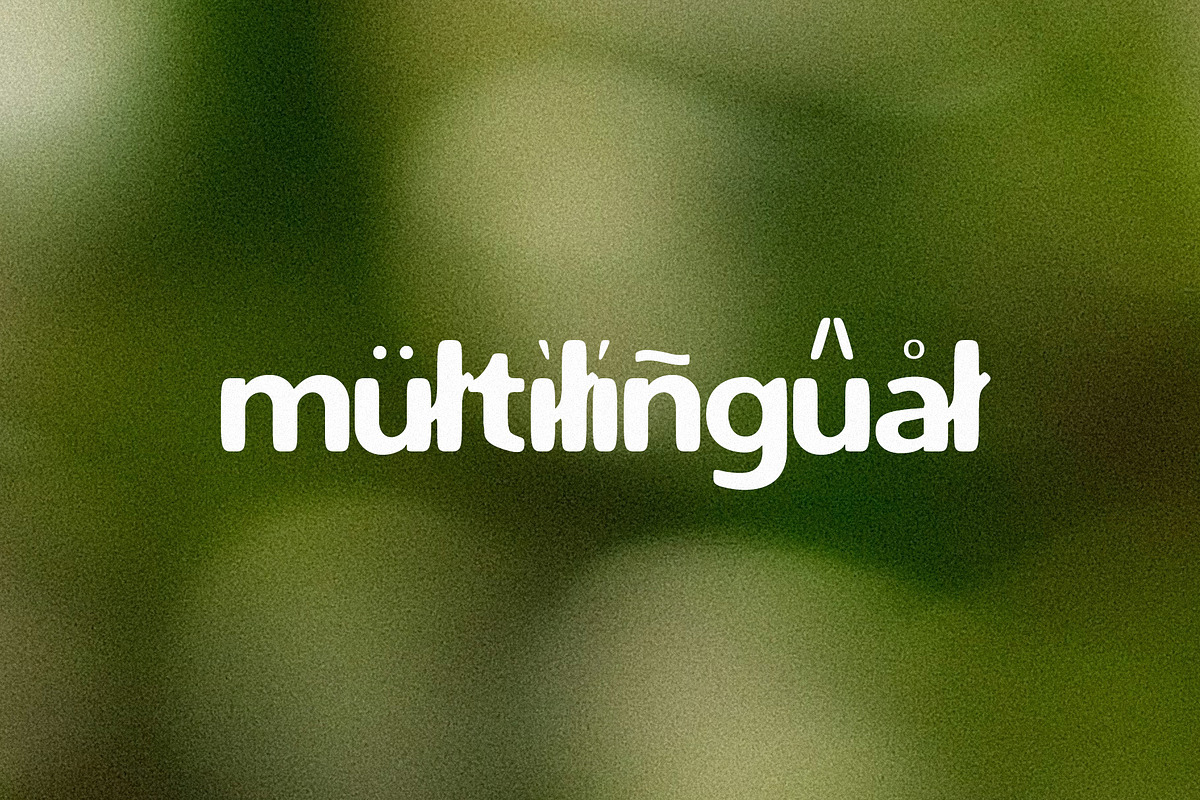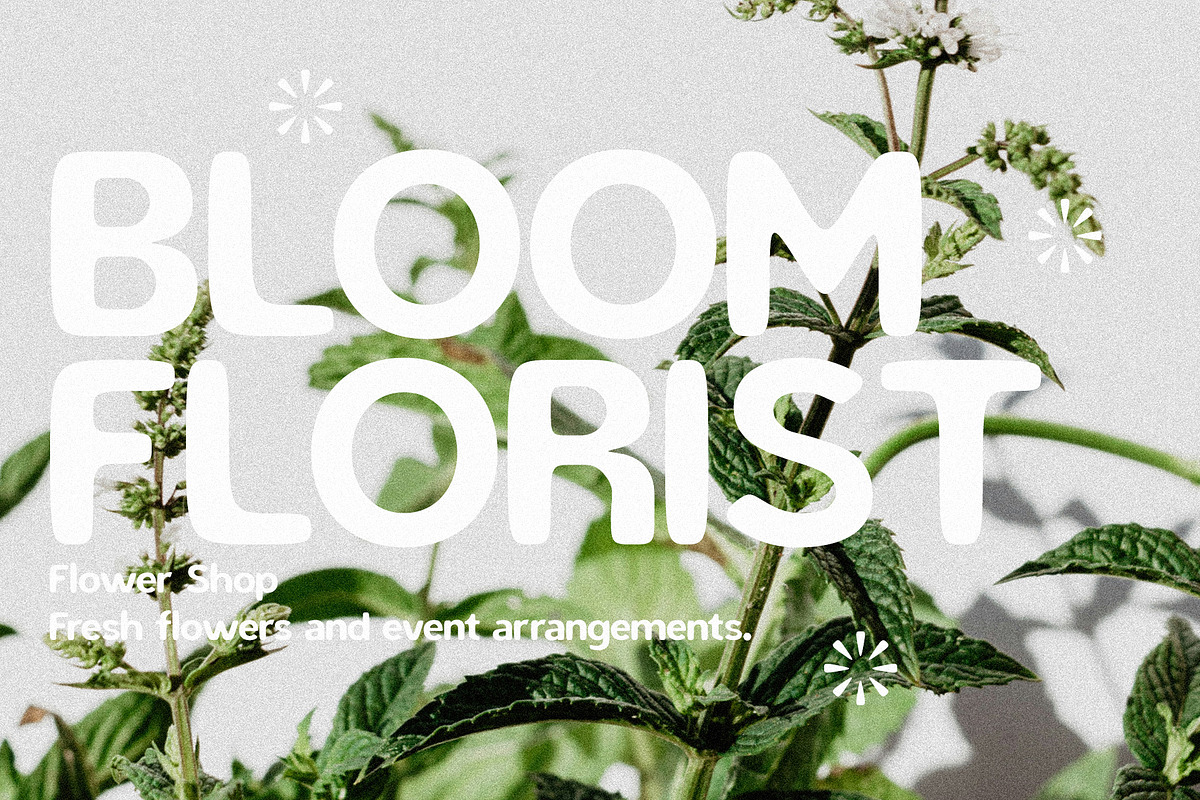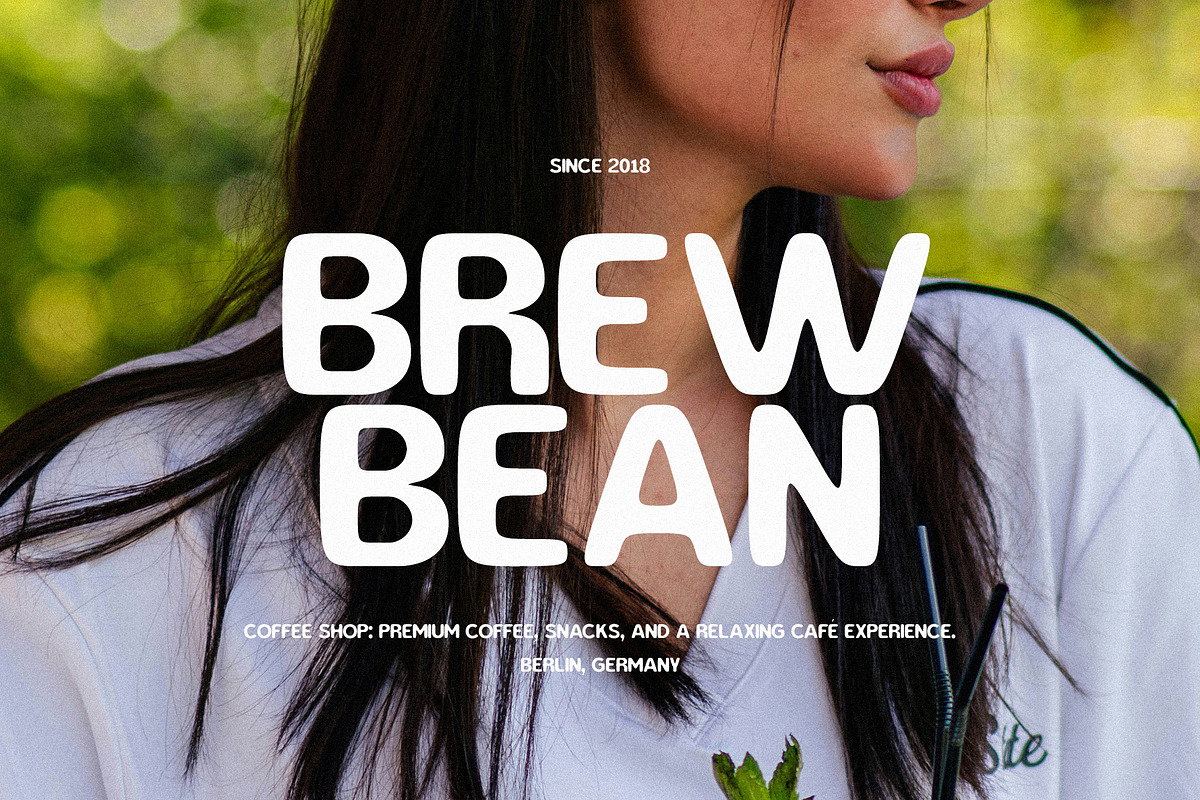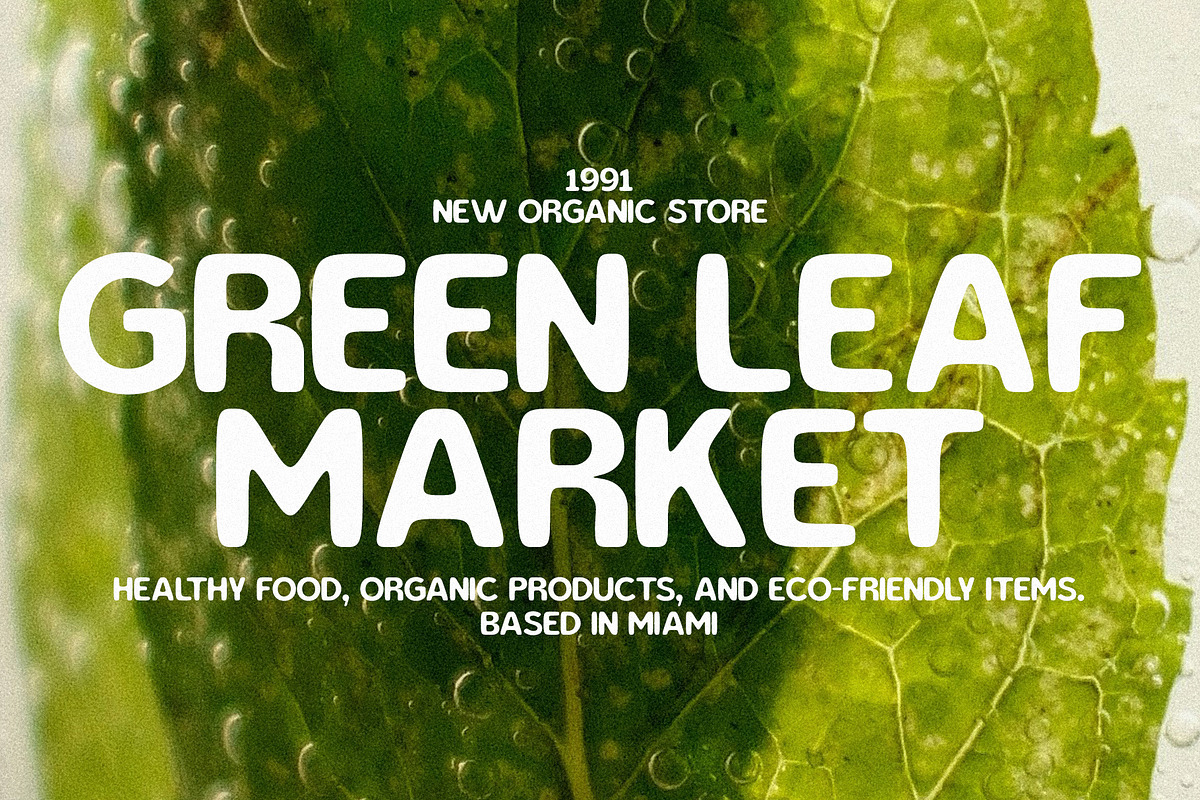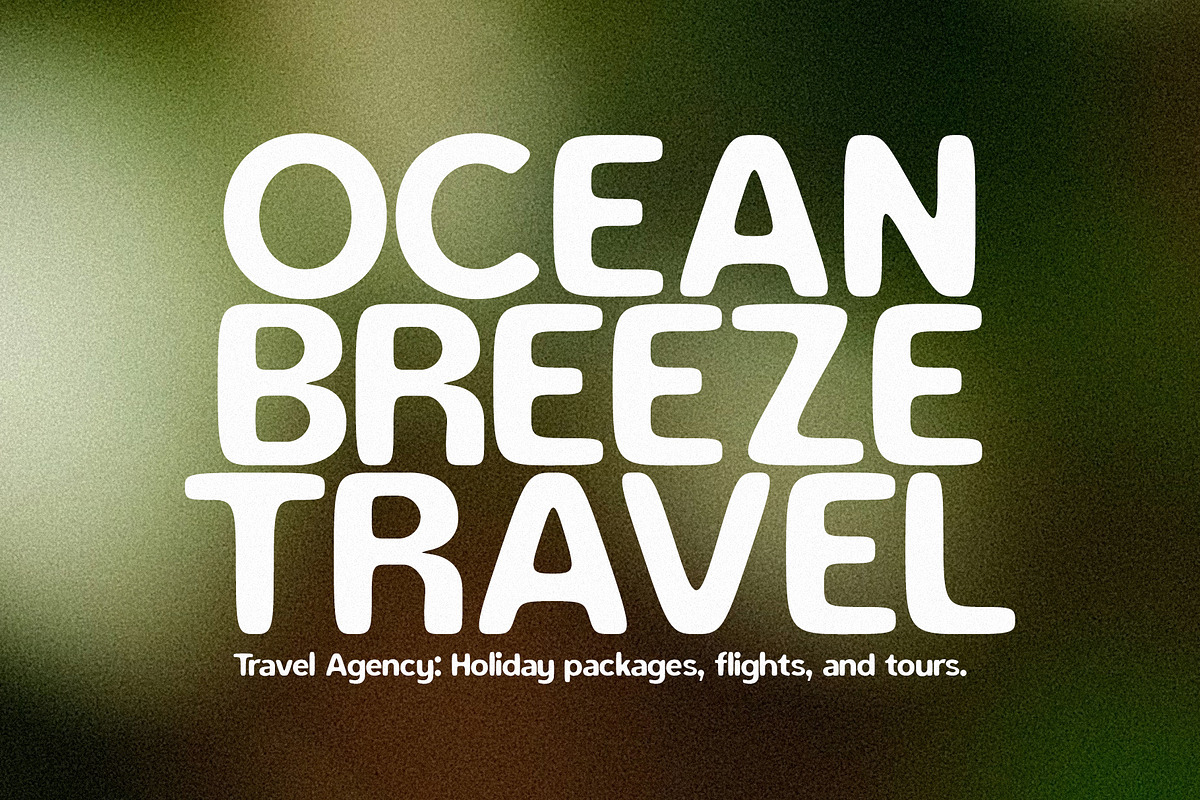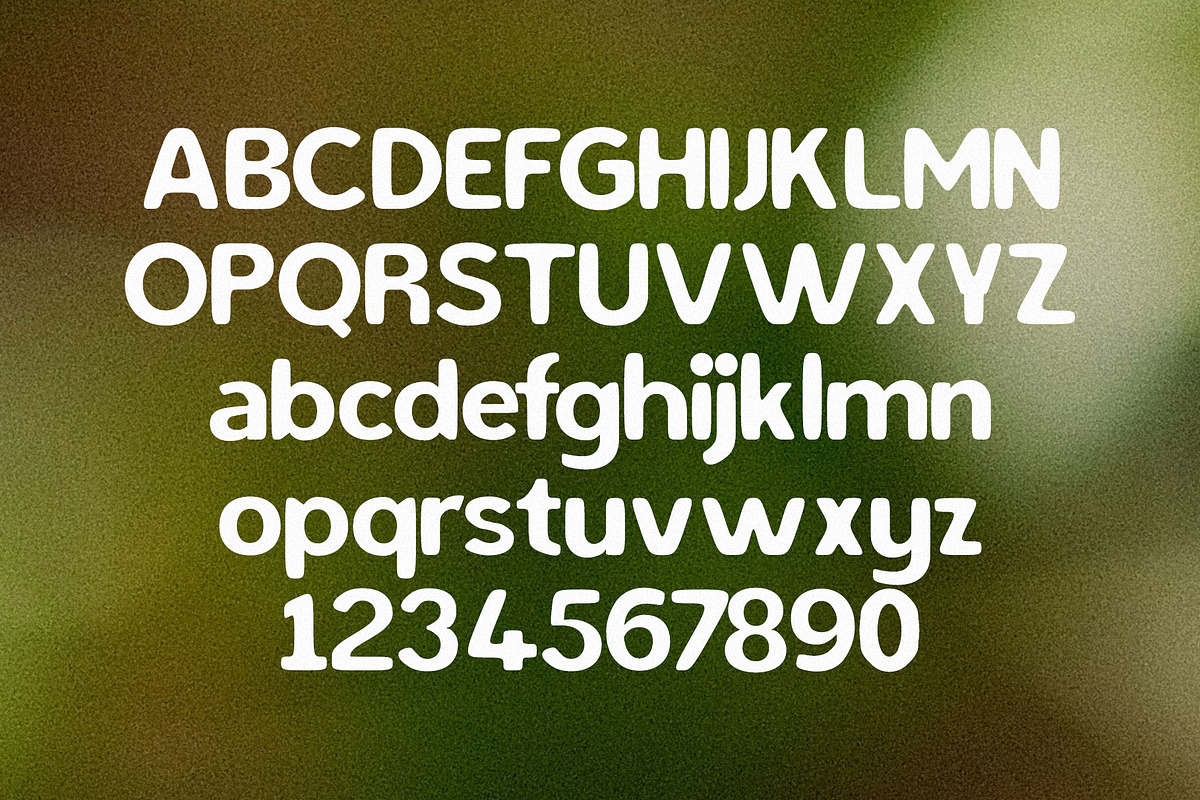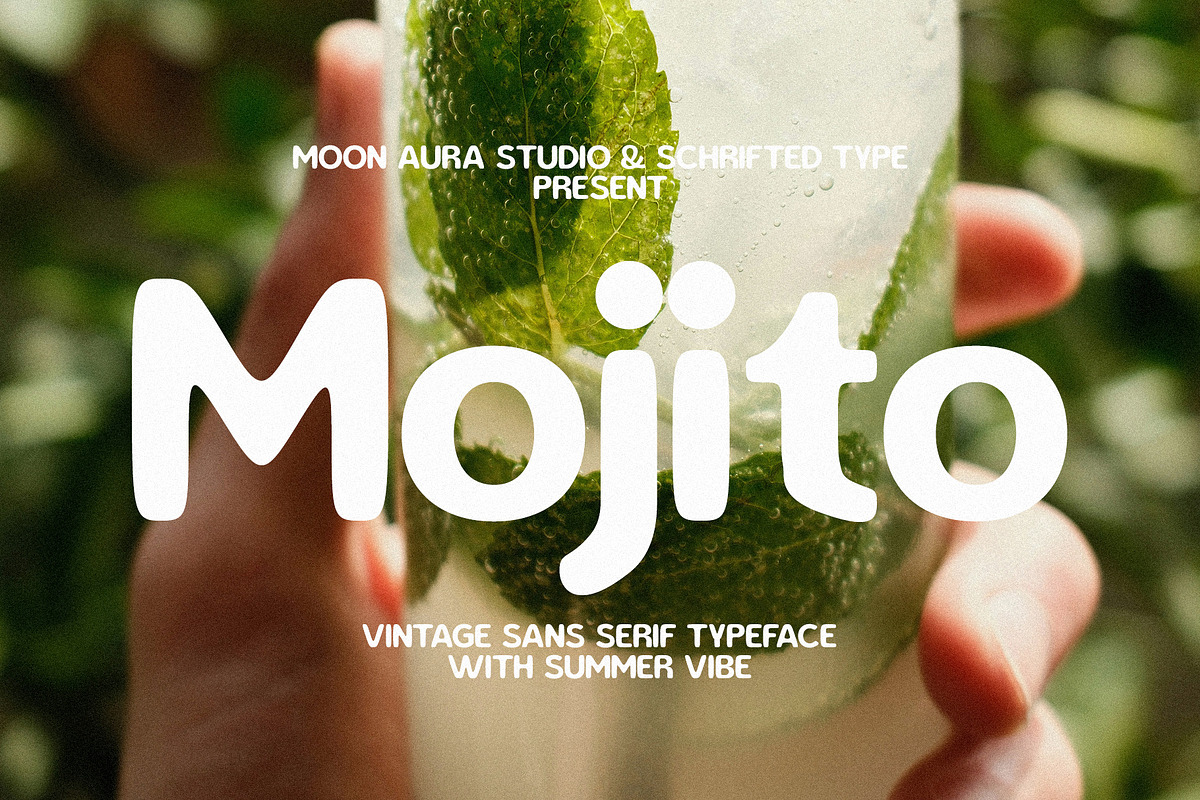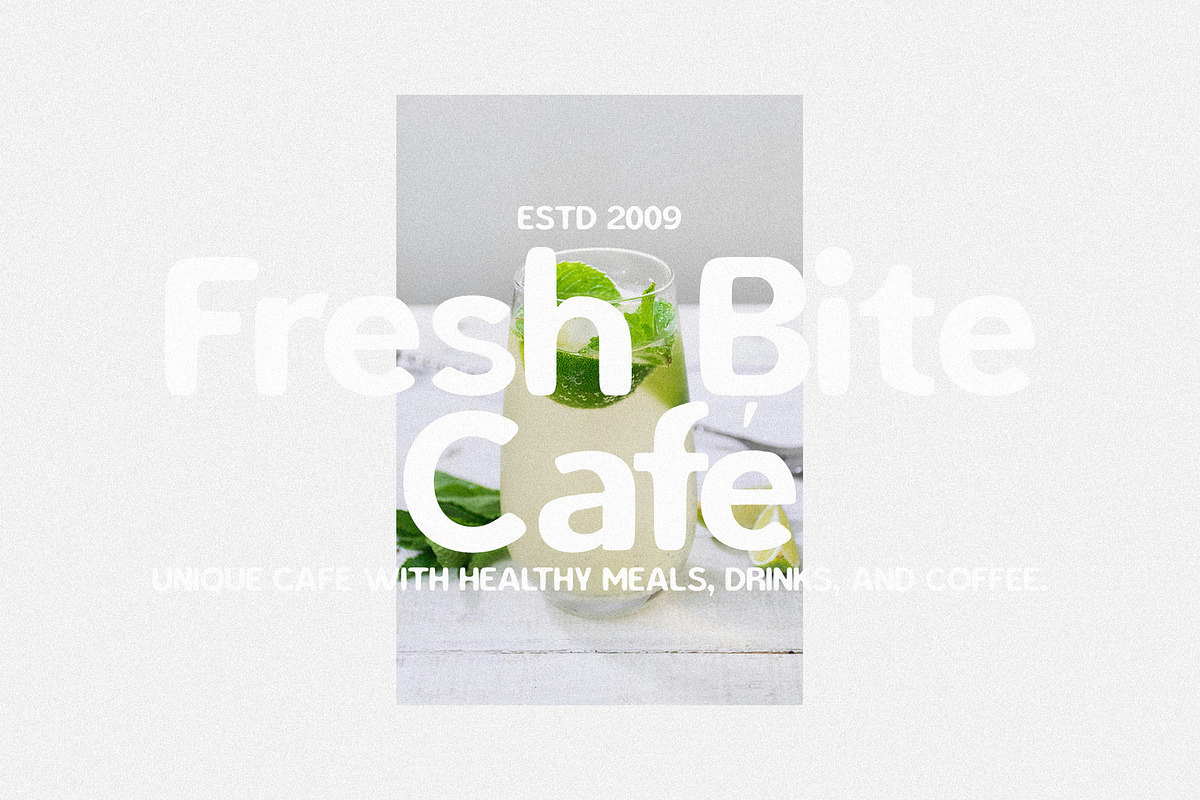
Mojito - Summer Vintage Sans
Mojito is a fresh and playful vintage sans serif font inspired by sunny days, tropical moods, and nostalgic summer vibes. With its clean shapes, charming curves, and relaxed character, Mojito brings a warm handcrafted feeling to every design. Perfect for logos, branding, packaging, posters, social media graphics, invitations, and lifestyle projects, Mojito adds a touch of retro elegance with a modern twist. Designed to feel effortless, cheerful, and refreshing — just like a summer day.